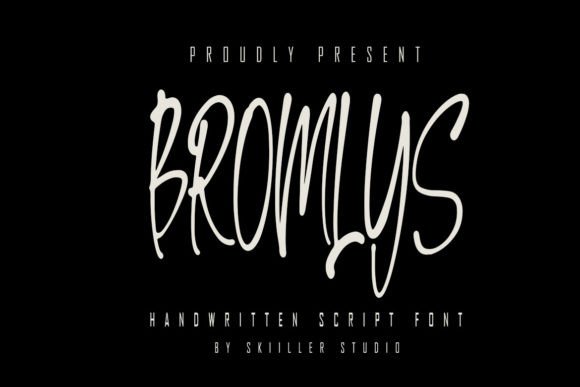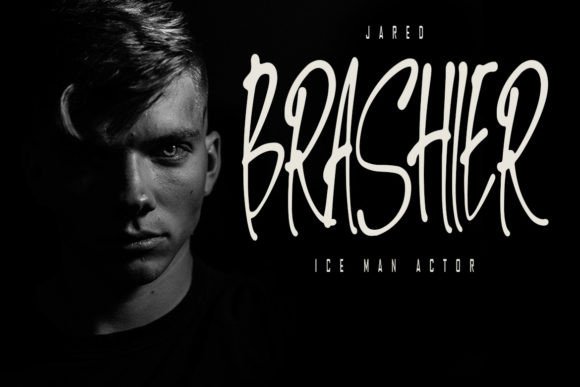
About Bromlys Font
Bromlys is a handwritten signature script with a natural flow and beautiful style. It has a classy, elegant, and modern look that can be used for logos, branding, invitations, stationery, wedding designs, social media posts, and much more!